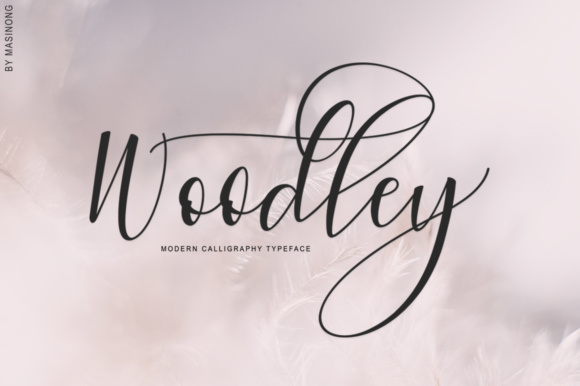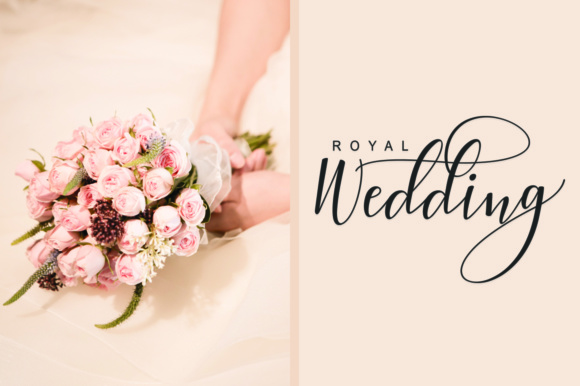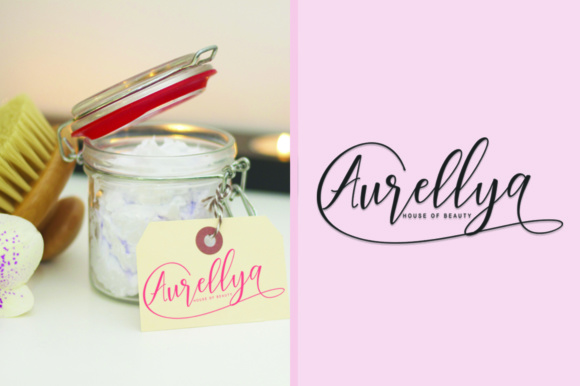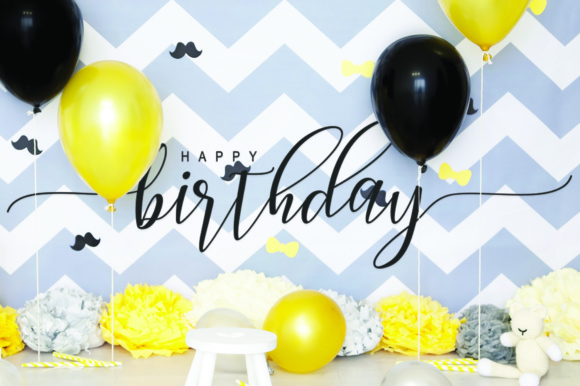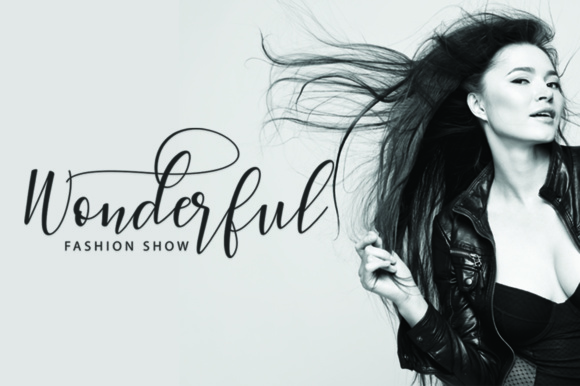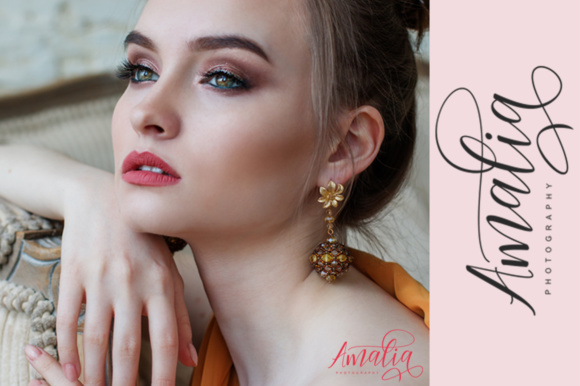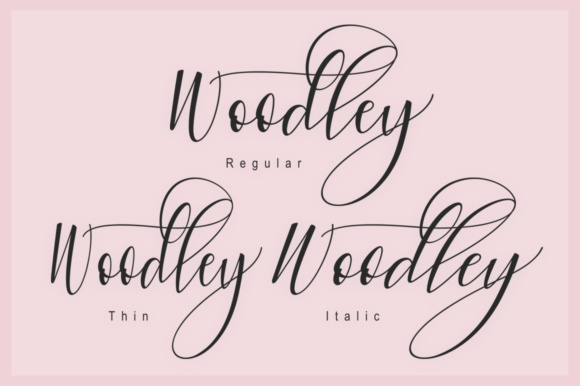
Woodley Font
About Woodley Font
Woodley is a gorgeous, swashy font that will make all your projects look outstanding and special! This font has tons of character and sass, and works well in romantic and refined project types.